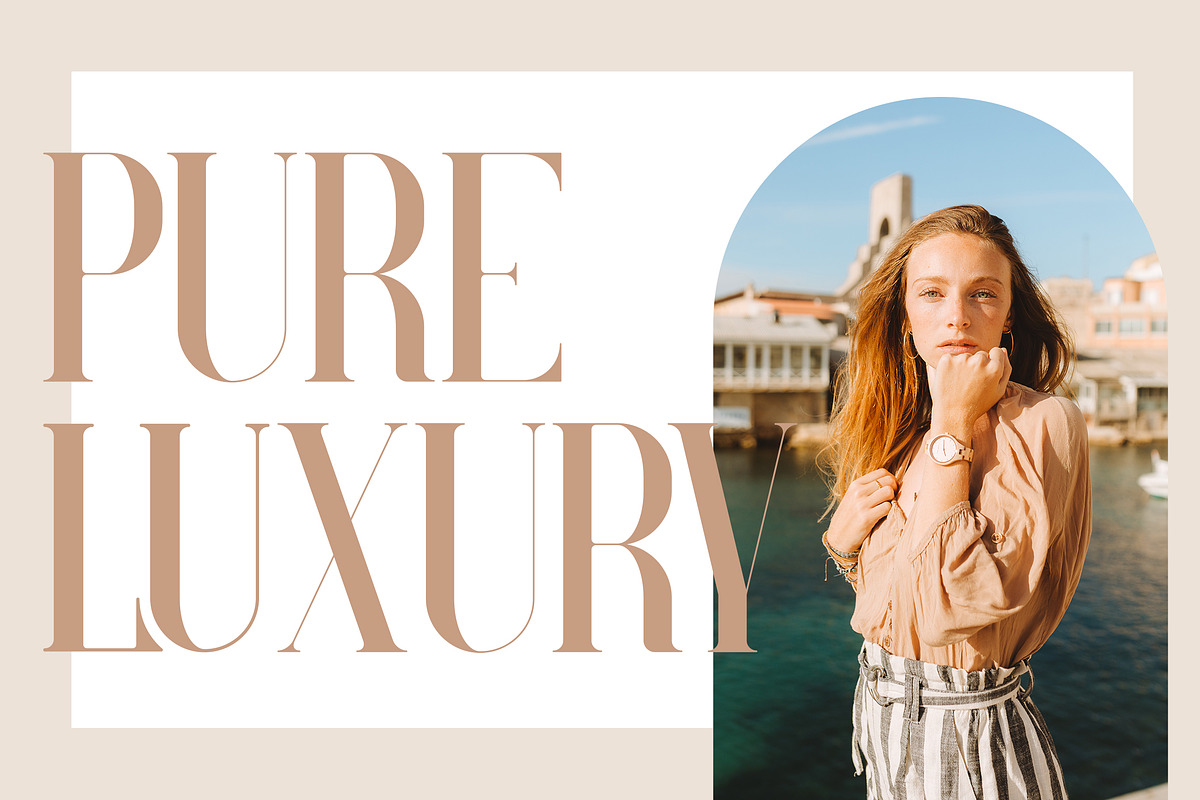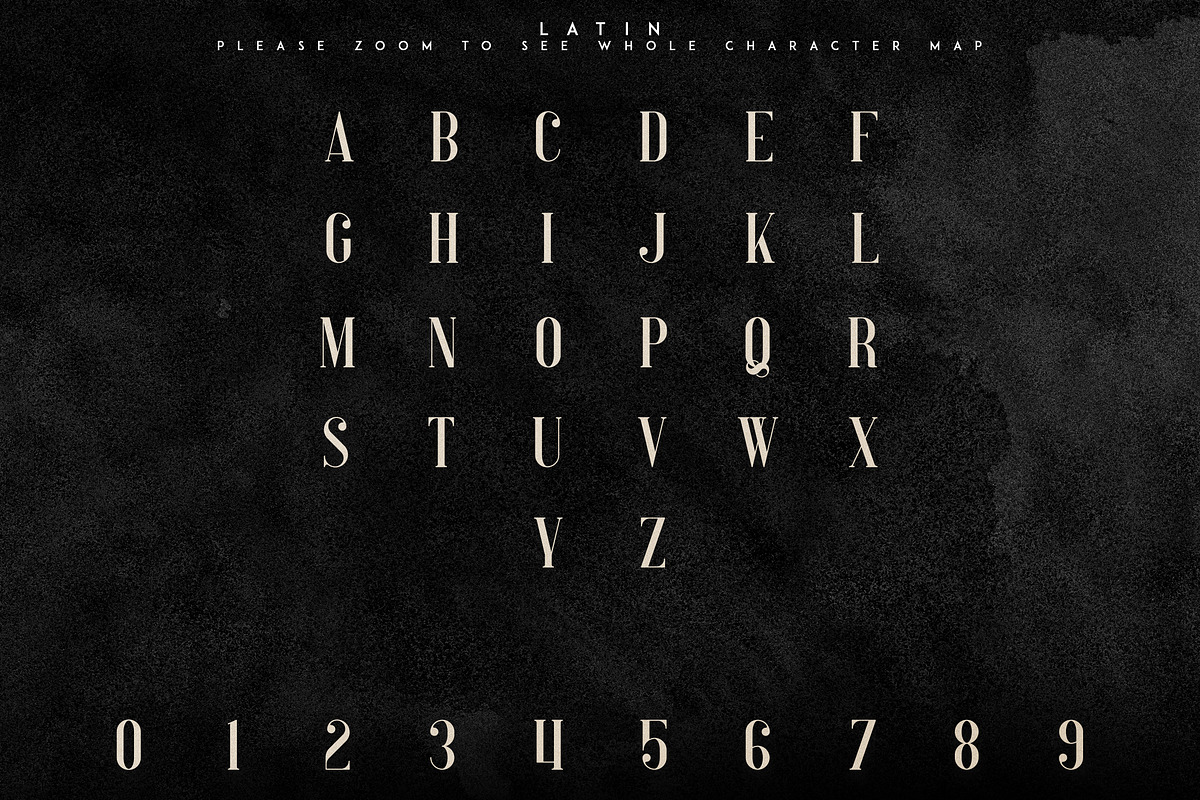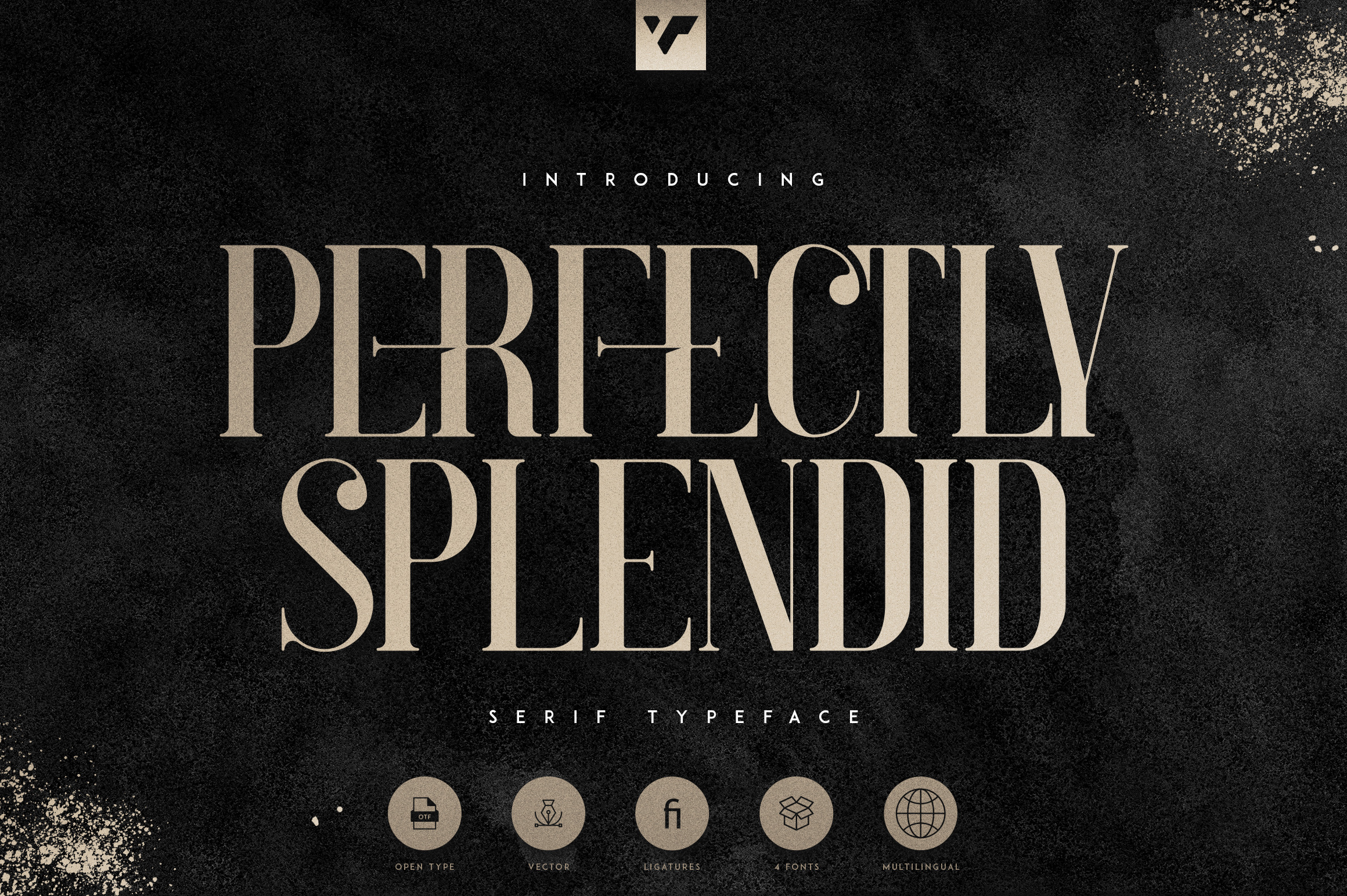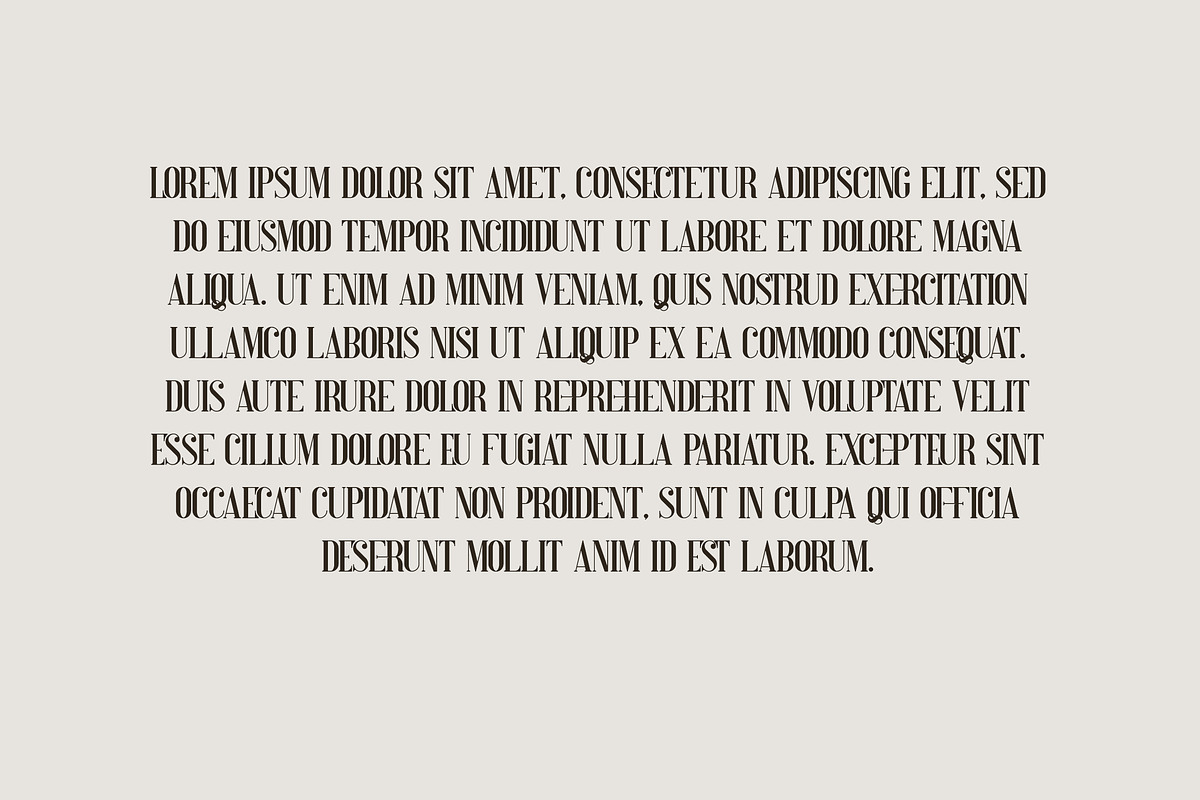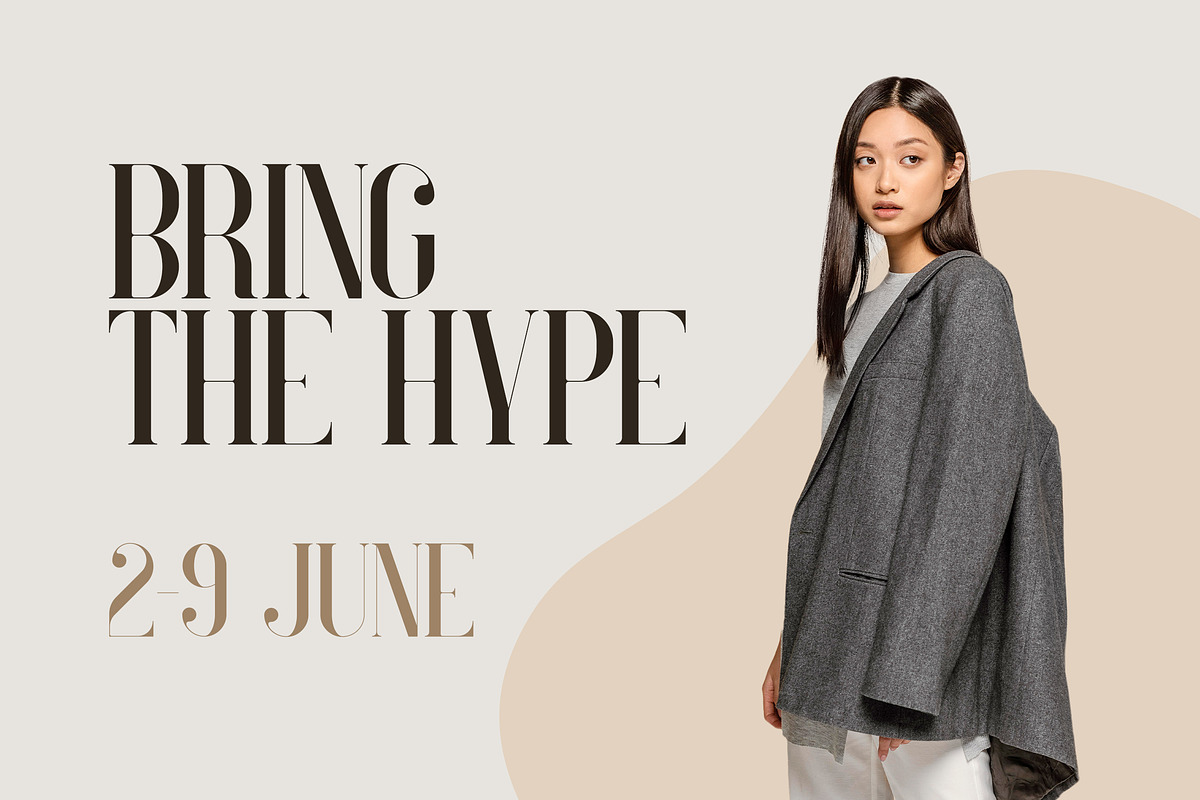
Perfectly Splendid Typeface - 5 font
Introducing Perfectly Splendid serif typeface - 5 weights
Perfectly Splendid is magical, sophisticated typeface with 5 fonts to enchant your next project. Very versatile fonts that works great in large and small sizes. Basic latin and advanced latin character sets are supported!
Perfectly Splendid is perfect for branding projects, home-ware designs, product packaging, magazine headers - or simply as a stylish text overlay to any background image.
- Uppercase numeral, punctuation & Symbol
- Hairline, Light, Regular, Bold, Black